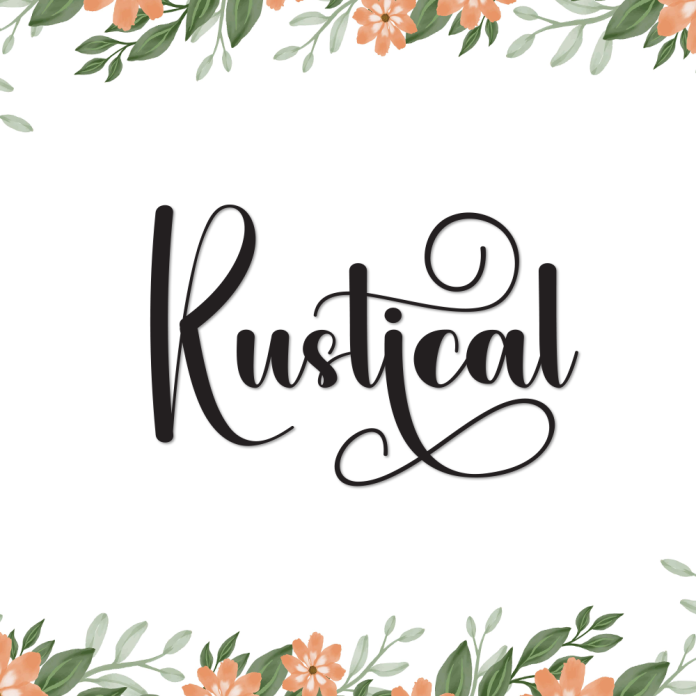
Rustical is a charming handwritten font that captures a cozy, natural feel. With its organic strokes and slightly rugged edges, this font evokes a rustic elegance — perfect for farmhouse themes, DIY projects, nature branding, and more.
Whether you're designing invitations, quotes, signage, or product packaging, Rustical brings a heartfelt and handcrafted look that feels personal and genuine.
Rustic, hand-drawn handwriting style
Perfect for nature-inspired or vintage-themed projects
Includes uppercase & lowercase, numbers & punctuation
Bring the warmth of handmade charm to your designs with Rustical — a font that feels like home.